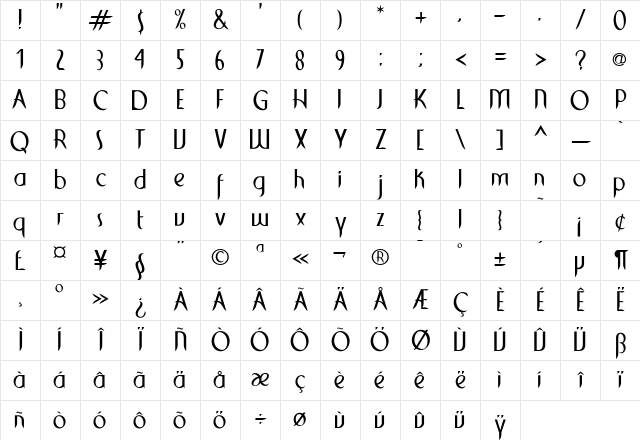
Cirrus Regular Free Font
Cirrus Regular
Foundry: Copr. T- Design; MaryAnne Mastandrea - Designer
Design Context for Cirrus
Cirrus is a composed and adaptable typeface that performs quietly and consistently across a wide range of design contexts.